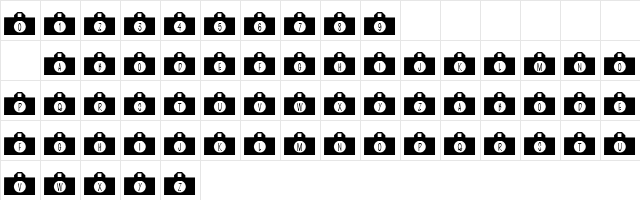
101! Say CheeZ! Regular
Design Context for 101! Say CheeZ! Typeface
101! Say CheeZ! is a composed and adaptable typeface that performs quietly and consistently across a wide range of design contexts.